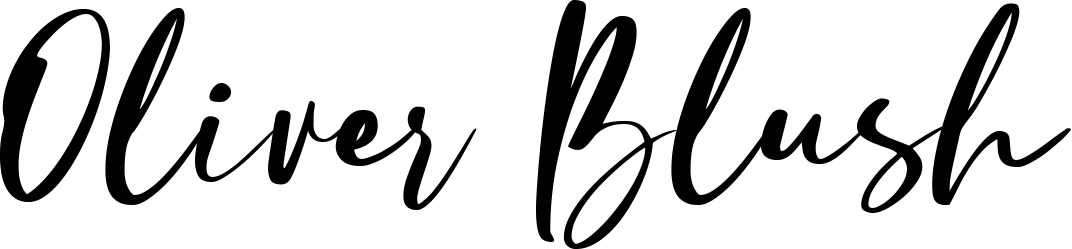
Oliver Blush Font
Sometimes, you might want to write the first few pages of your book in a script font to make it look like your own handwriting. In this case, Oliver Blush is an ideal font for this purpose. Although this script font doesn’t have high readability, it conveys a sense of personalization and intimacy to the audience.